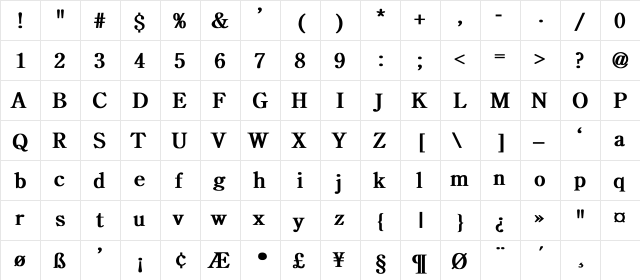
Bucolic Modern Light Bold Regular
Design Context for Bucolic Modern Light Bold Typeface
Bucolic Modern Light Bold offers clean, dependable letterforms without strong stylistic allegiance, making it a practical choice for designers who need flexibility. Its bold stroke weight gives it real presence on the page.